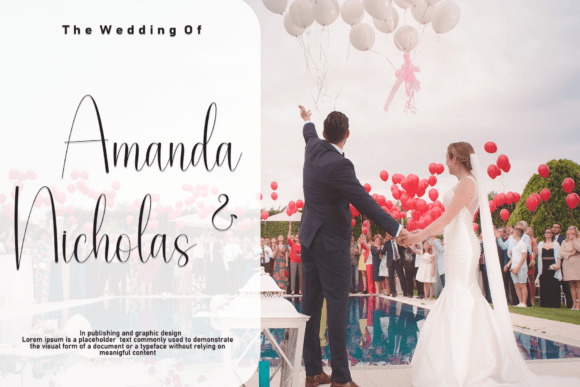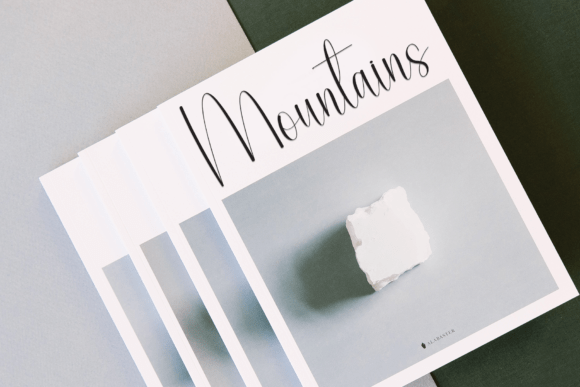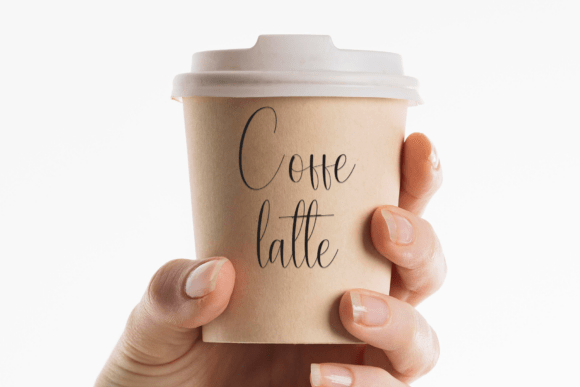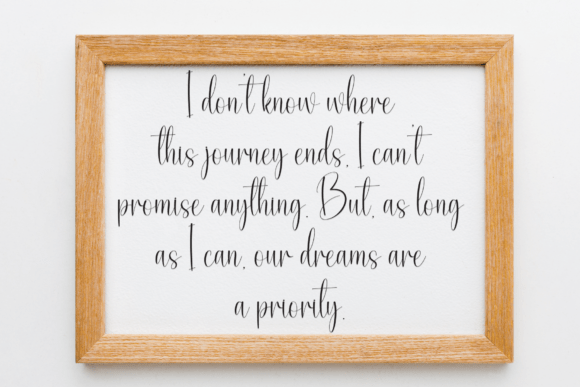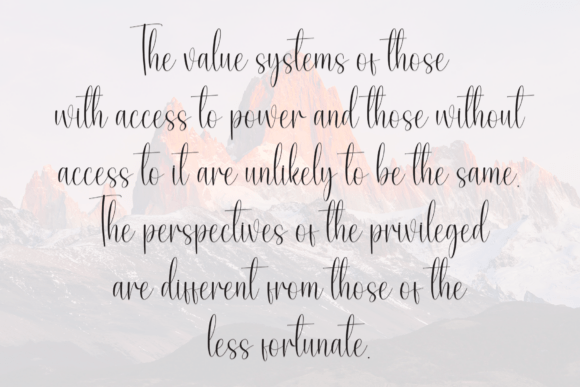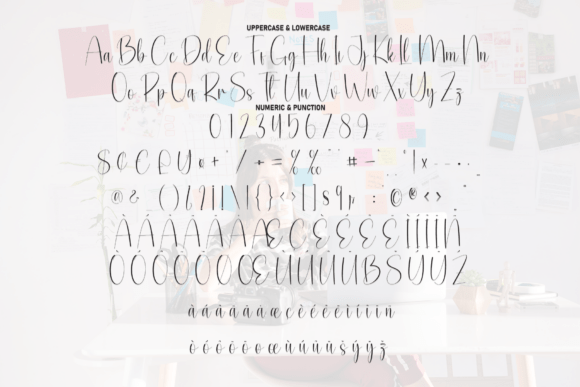
The Art of Handwritten Charm: Introducing Autography Font
As a designer, have you ever felt the urge to add a personal touch to a project, but struggled to convey the essence of your creative vision? Perhaps you’ve been searching for a font that captures the elegance and playfulness of a handwritten script, but still maintains a level of sophistication and refinement. If so, you’re not alone.
Enter Autography Font, a stylish and charming script font that brings a natural, flowing rhythm to any project. With its flowing curves and elegant design, Autography Font adds a personal and creative touch to invitations, branding, and social media, making it a valuable tool for designers looking to elevate their work.
Autography Font Key Features
- Font Style: Script, Calligraphy
- Unique Characteristics: Handwritten feel, elegant and sophisticated look, suitable for invitations, wedding cards, and other special occasions
Autography Font Review
Overall, I was quite excited to dive into Autography Font, but my experience was a mixed bag.
- Unique aesthetic: Autography Font has a distinct look that sets it apart from other fonts. The cursive script style gives it a personal touch.
- Legibility: The font is quite readable, even at smaller sizes, making it a good choice for body text.
- Professional feel: Autography Font exudes a sense of professionalism, making it suitable for business-related applications.
- Lack of versatility: The font feels a bit one-dimensional, and it might not be the best choice for more creative or playful projects.
- Overuse risk: Due to its unique style, Autography Font might be overused in certain industries, which could make it feel less special.
While Autography Font has its strengths, it also has some notable limitations. If you’re looking for a unique, professional font for business or formal projects, Autography Font might be a good choice. However, if you need a more versatile font or are concerned about compatibility issues, you might want to explore other options.
Getting the Most Out of Autography Font
For best results, use Autography Font in bold or italic styles to emphasize key points.
Use Autography Font in combination with other fonts to add depth and variety to your design.
Autography Font is ideal for use in:
– Headlines and titles
– Quotes and inspirational messages
Alternatives to Autography Font for Designers
Great Vibes is a beautiful, elegant script font ideal for creating a sophisticated and refined atmosphere in your designs. It’s perfect for use in logos, invitations, and other promotional materials where a touch of elegance is required.
Compared to Autography Font, Great Vibes has a more refined and sophisticated feel, making it suitable for high-end designs. It’s also more versatile and can be used in a wider range of contexts.
Pacifico is a beautiful, modern script font that exudes a sense of relaxation and calmness. It’s perfect for use in designs that require a touch of warmth and friendliness, such as food packaging, magazines, and social media graphics.
Compared to Autography Font, Pacifico has a more relaxed and casual feel, making it suitable for designs that require a friendly and approachable tone.
Dancing Script is a lively and energetic script font that’s perfect for use in designs that require a sense of excitement and dynamism. It’s ideal for use in logos, advertising materials, and other promotional materials where a touch of energy is required.